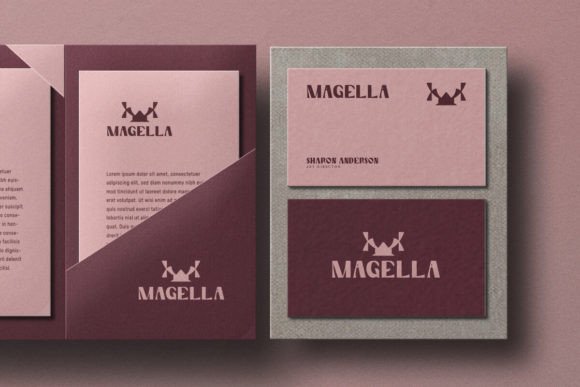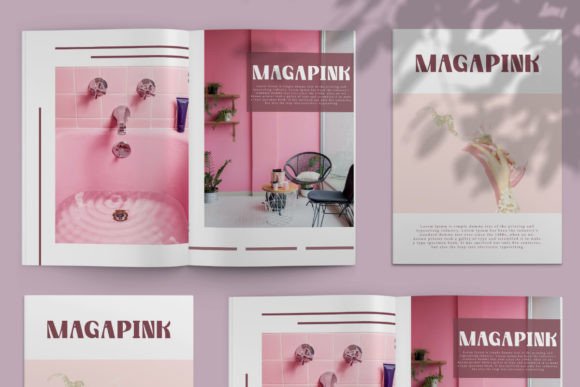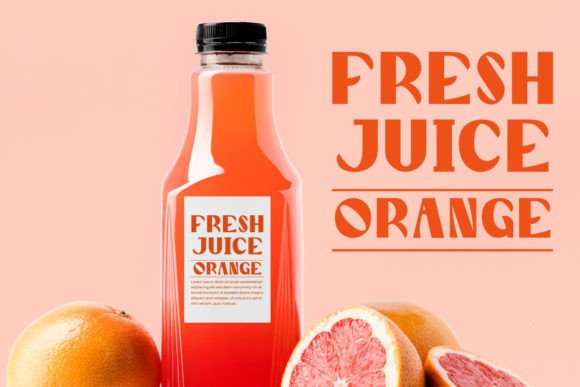
Introduction to Pink Scooter Font
Pink Scooter is a modern and stylish display font, created by NoahType.
This font has a strong look with unique lines that will make you want to use it in a variety of designs, such as business card, catalog, cover, custom design, greeting card, label, poster, quote, web, and more .
Pink Scooter Font offers exceptional quality and versatility, making it a valuable addition to your design toolkit. Whether you’re creating for personal projects or commercial use, Pink Scooter Font delivers professional results.